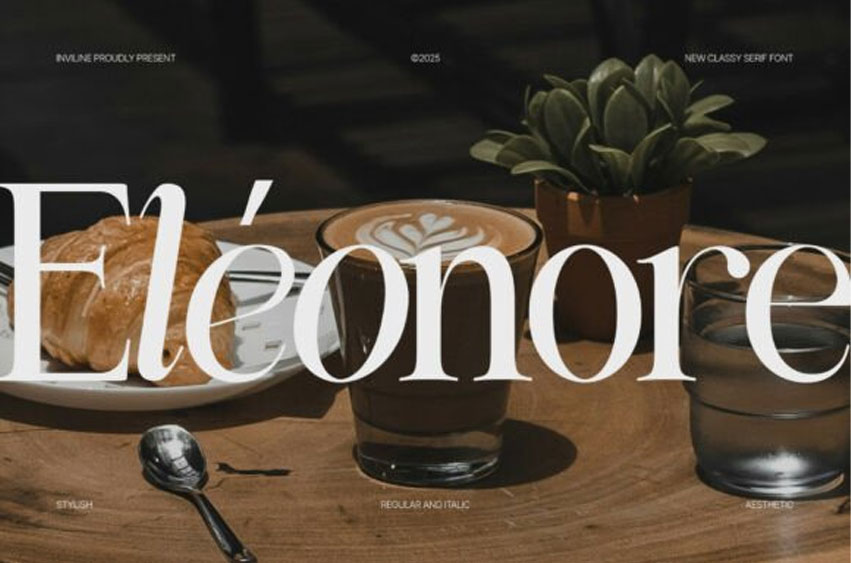
Eleonore Regular Font
Eleonore Regular Font is a classy and timeless serif font crafted with elegance and high contrast. Perfect for editorial layouts, branding, and premium packaging, this typeface brings a sophisticated aura to any design.
Available in both Regular and Italic styles, Eléonore is ideal for fashion-forward projects and refined aesthetics.